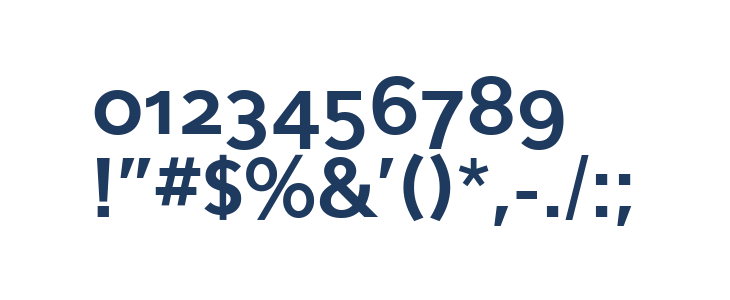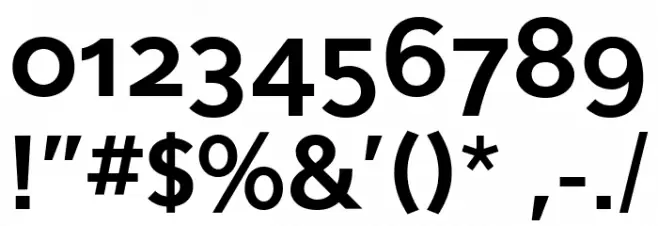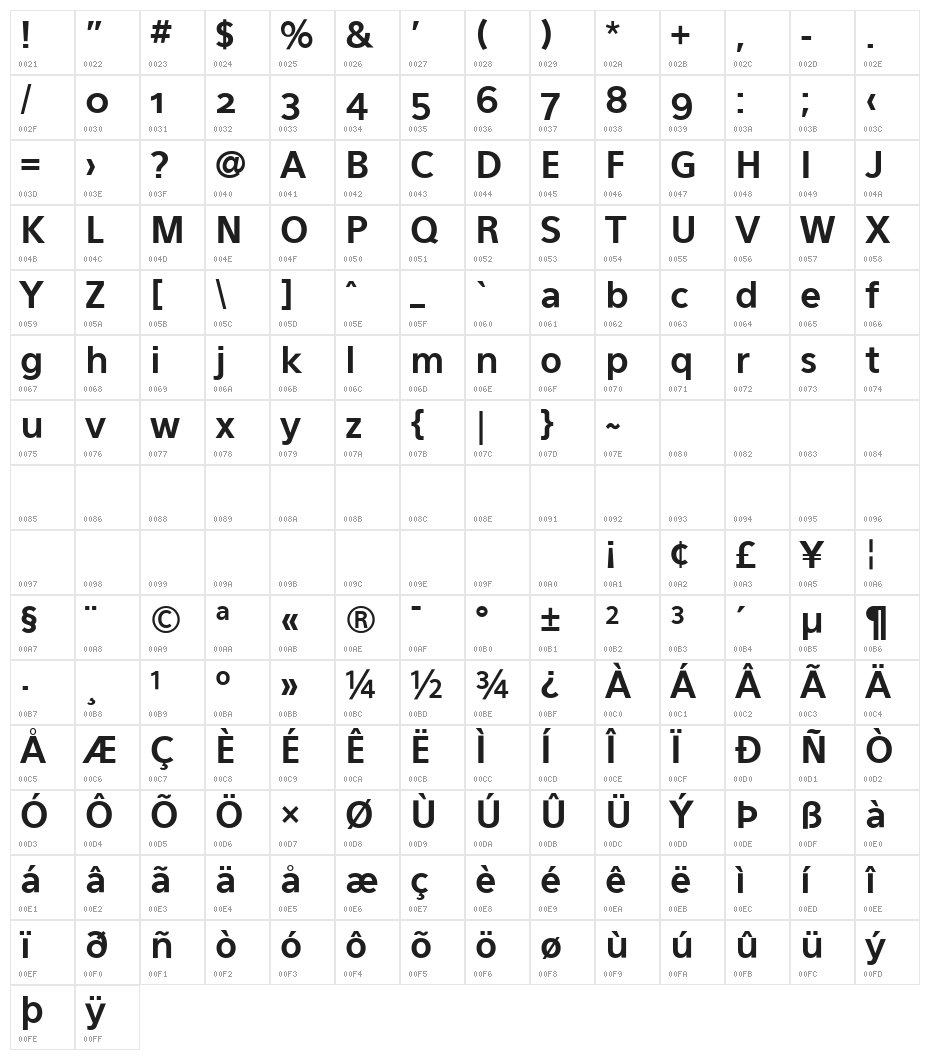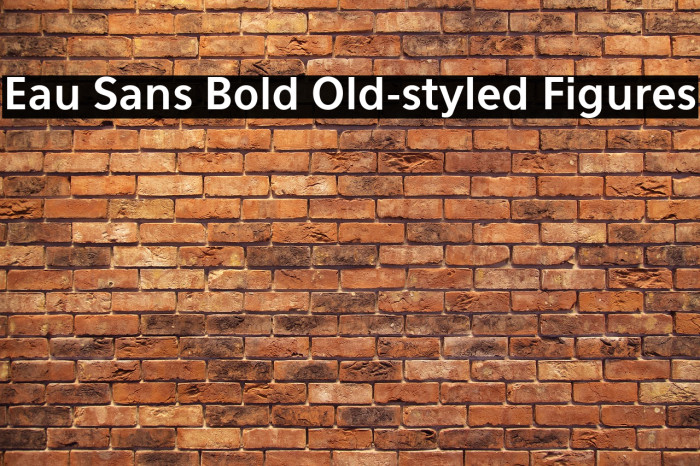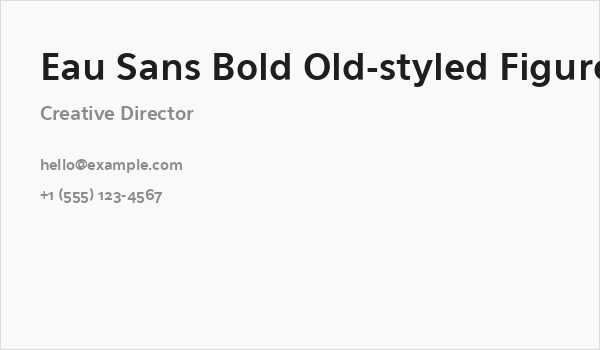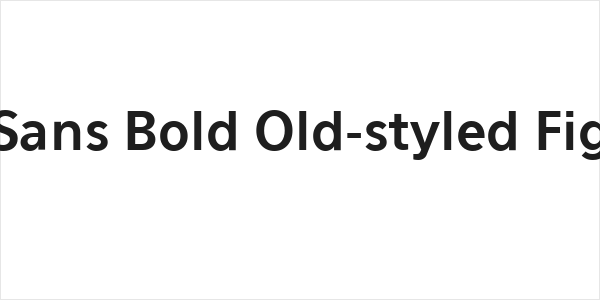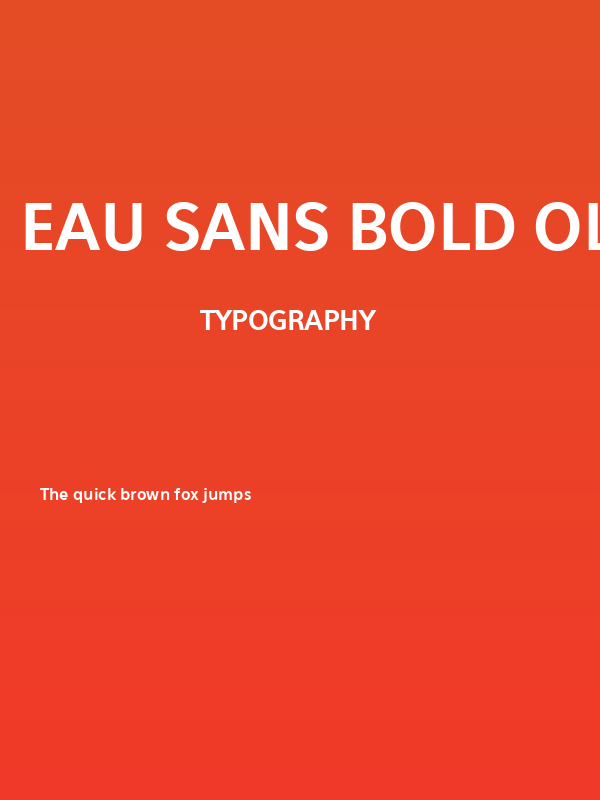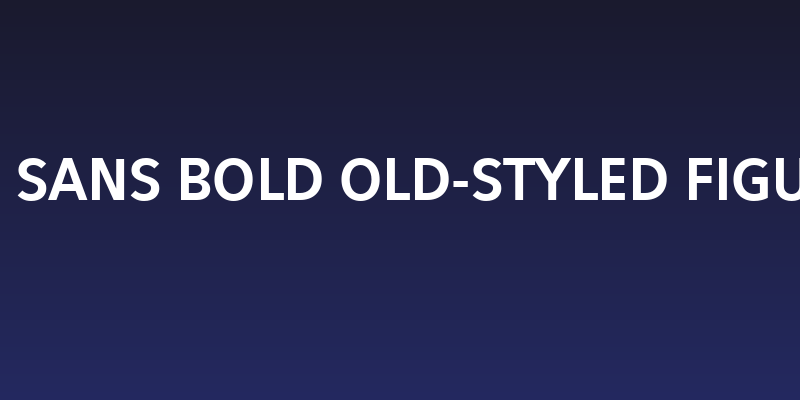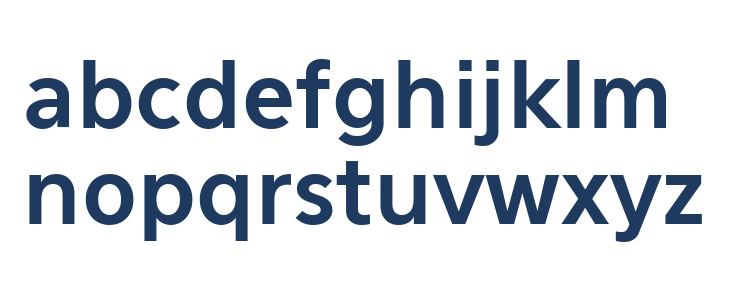
Eau Sans Bold Old-styled Figures Font
Eau Sans Bold Old-styled Figures Description
This font presents a clean and modern sans-serif style with bold weight, offering a strong and confident appearance. The characters are well-proportioned with a uniform stroke width, contributing to its readability and versatility. The uppercase and lowercase letters maintain a consistent design, while the numerals and special characters are clear and distinct. The overall design is minimalistic, making it suitable for a wide range of applications. Its boldness ensures visibility and impact, making it ideal for headlines and attention-grabbing text.